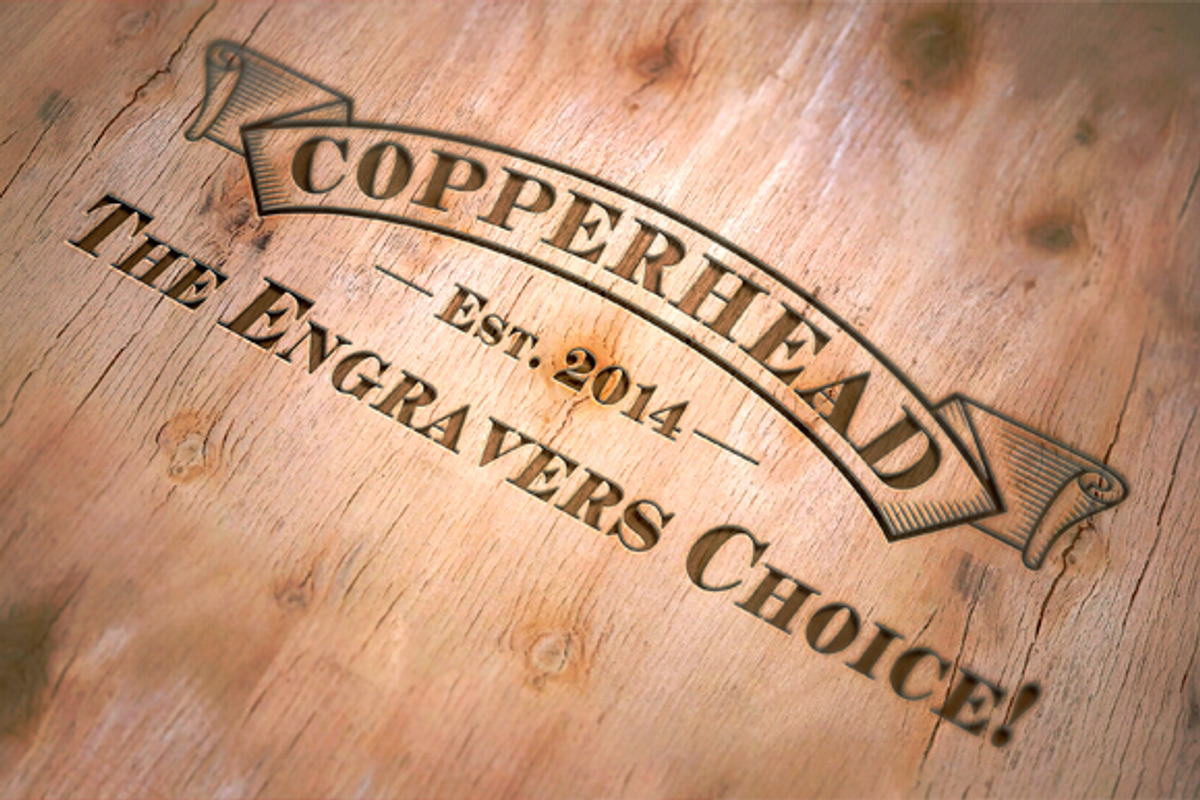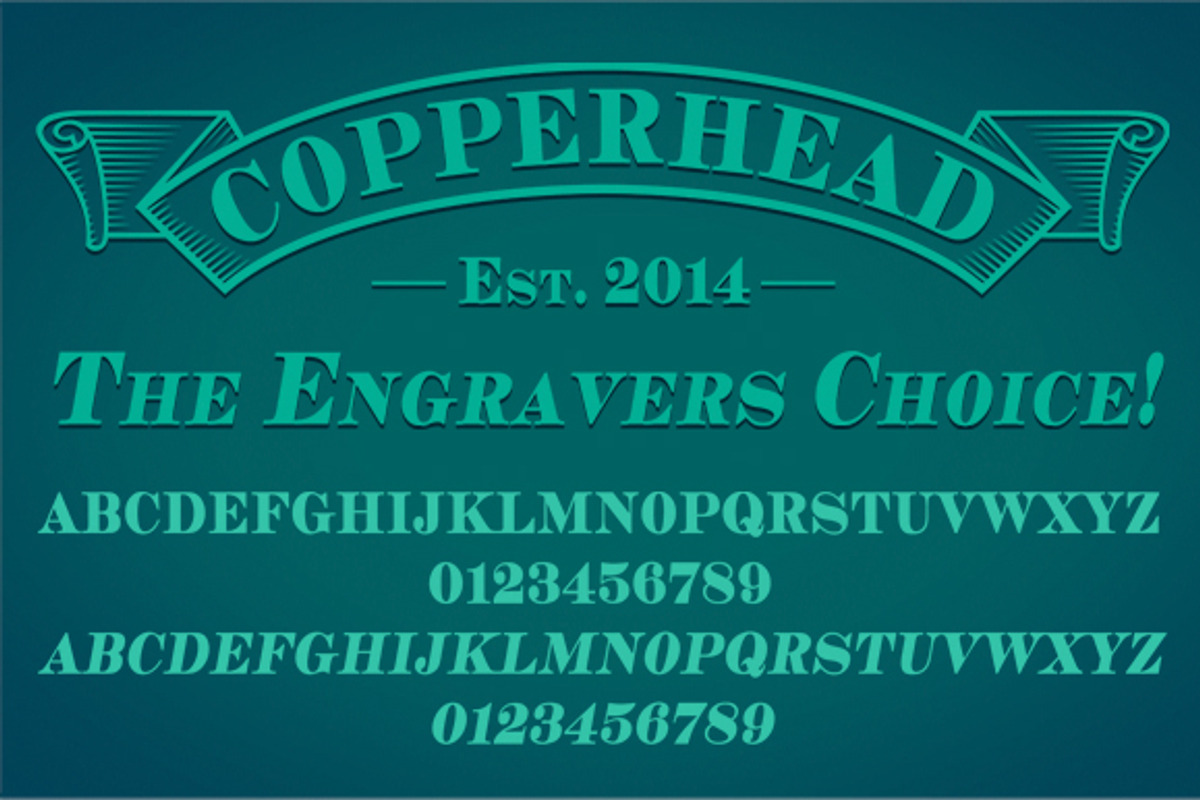
Copperhead Font
Copperhead Font by Kustomtype is a font selected for branding, posters, packaging, typography.
Why Copperhead Font is worth a look
Copperhead Font by Kustomtype fits naturally into Branding, posters, packaging, typography.